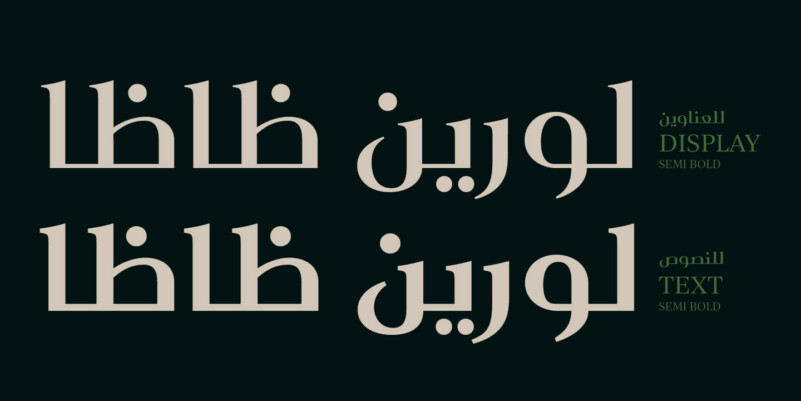
Laureen Zaza Font Family
Laureen zaza is an Arabic typeface that has a very particular appearance. It combines the characteristics of different genres; most notably the contrast of serif faces. While its design is influenced by Kufic and the Naskh style.
Laureen zaza consists of two typefaces, text and display, and 4-weights.
It’s a perfect choice for bold headlines, oversize typography, fashion logos, branding, identity, website design, album art, covers, posters, advertising, etc.